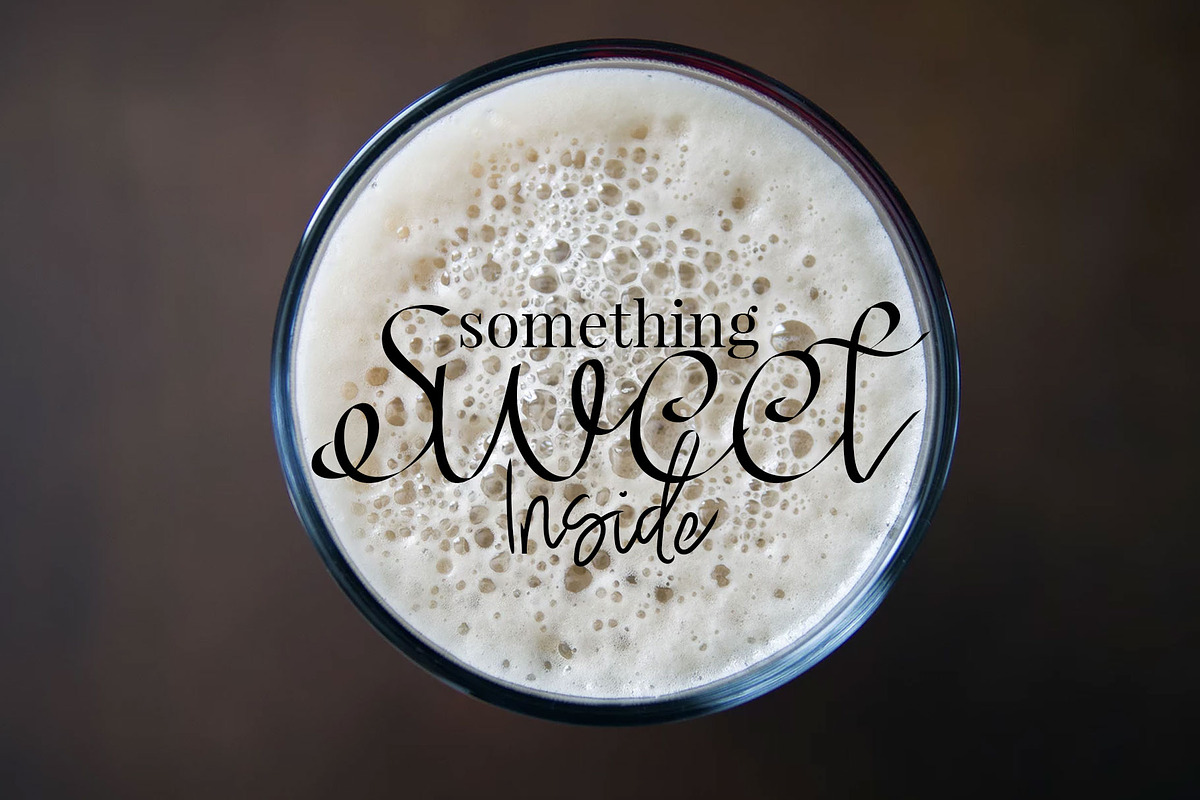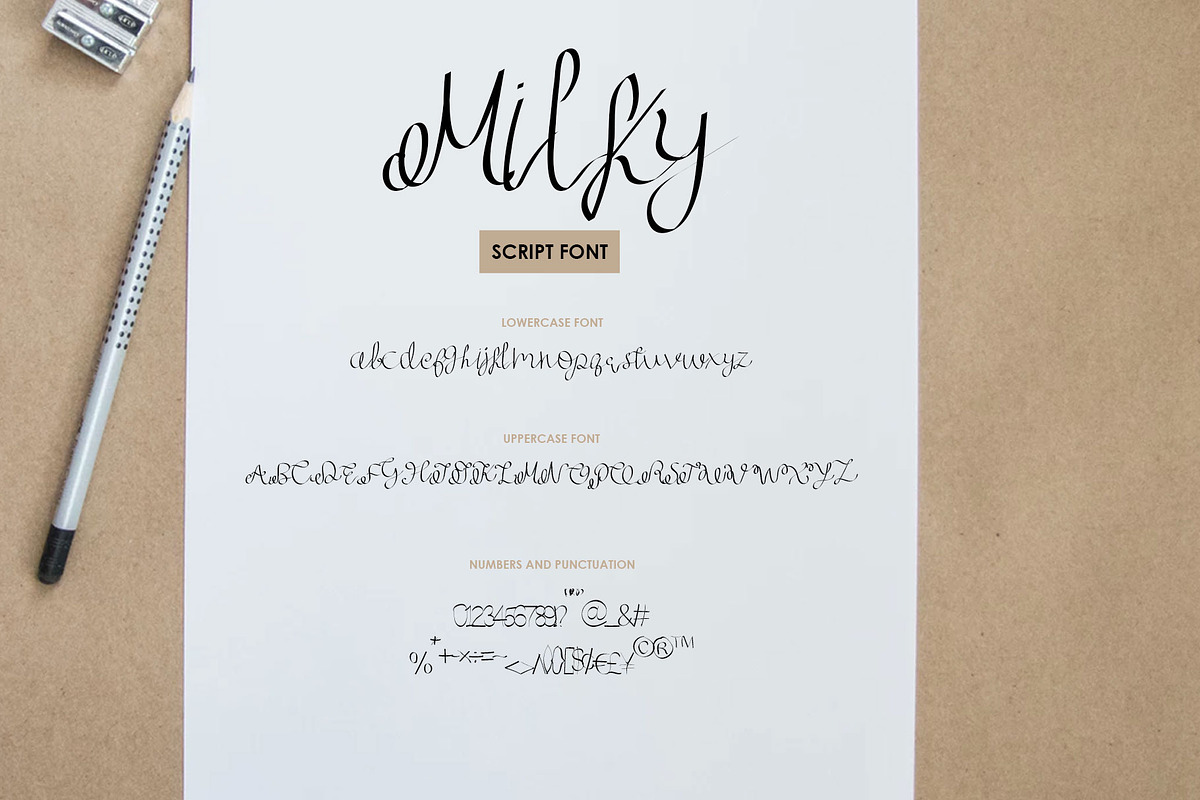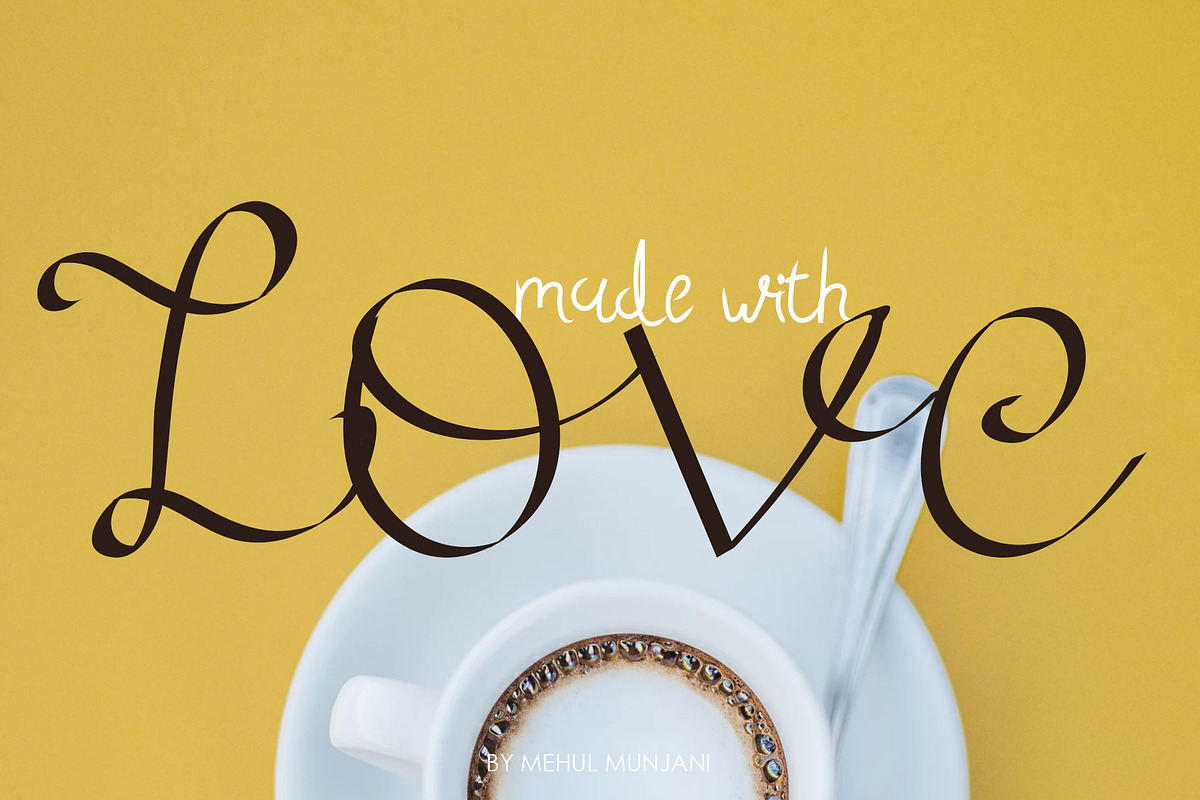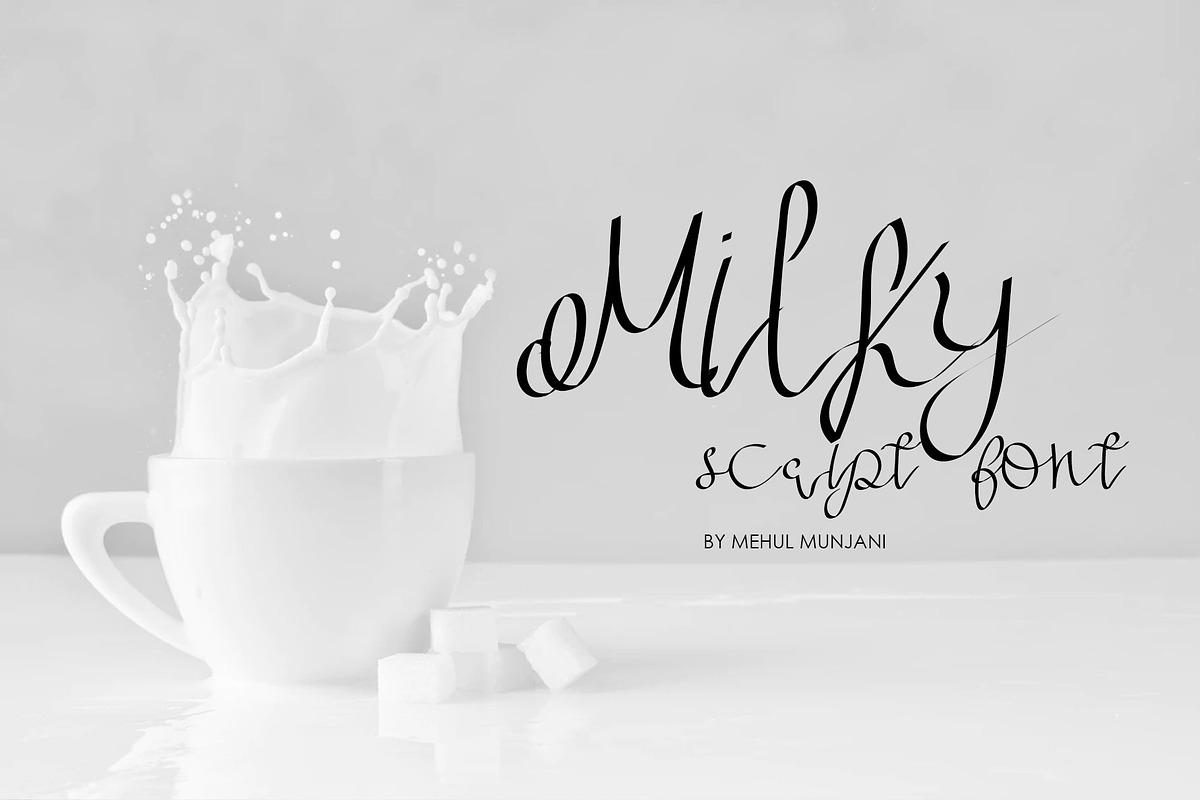
Milky Script font
Milky script font is specially made calligraphy font to enhance your creative product and graphics designing skill.
Why Milky Script font is worth a look
Milky Script font by Mehul Munjani fits naturally into Branding, posters, packaging, typography.